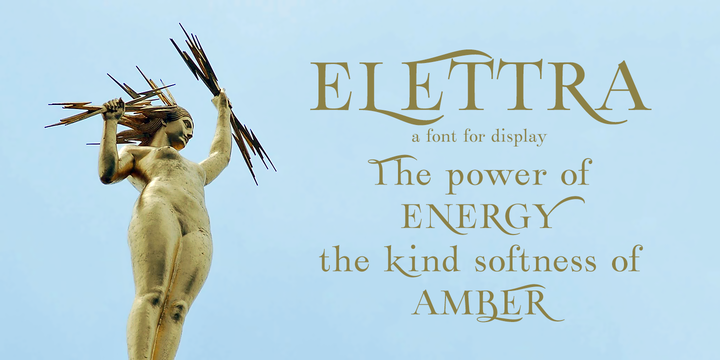
Elettra is a completely new type, primarily designed for display or titling. As you can see, Elettra adopting a transitional style between the nineteenth century printing typefaces and the new fonts at the beginning of the twentieth century: in particular serif are elongated, but the oblique or round shapes continuing softly on the horizontal line instead of staying vertical. More…